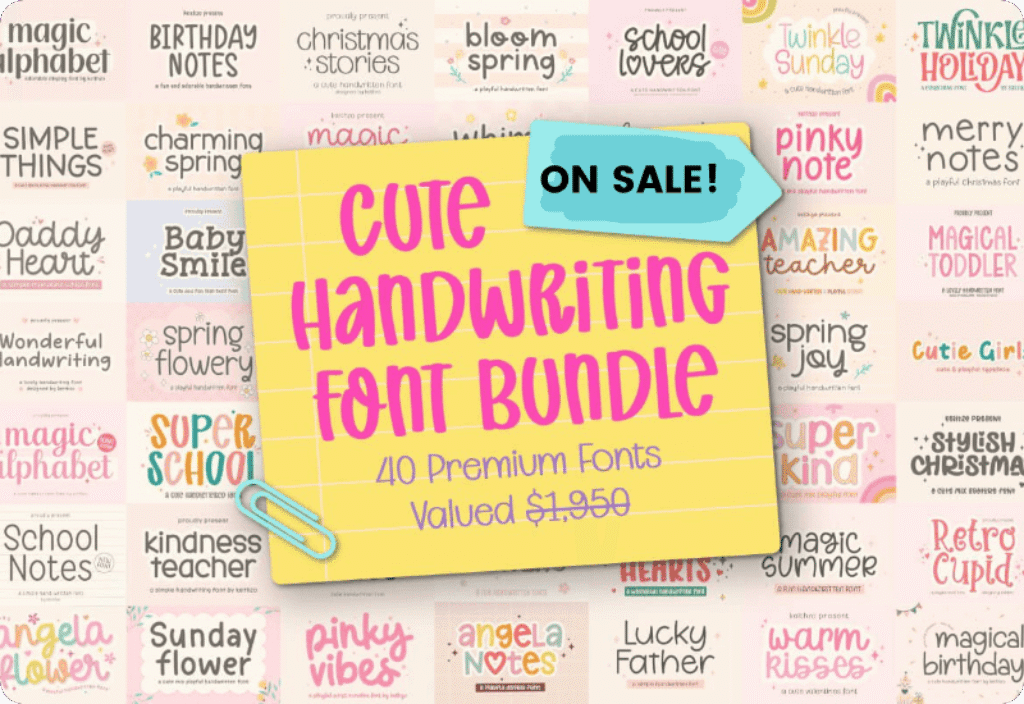
The Cute Handwriting Font Bundle is a delightful collection designed to bring warmth and personality to any design. This carefully curated selection of 40 premium fonts from the skilled hands of Keithzo (7NTypes) blends charm, simplicity, and artistic flair in a way that adds a welcoming, handcrafted look to all kinds of projects. Each font radiates a unique vibe, from sweet and playful to elegant and modern, making it easy to craft designs that feel personal and memorable.
A Bundle Packed with Variety and Creative Freedom
The Cute Handwriting Font Bundle offers a variety of fonts that celebrate the handwritten aesthetic. Whether the goal is to design for special occasions, personal projects, or professional branding, this bundle delivers designs that are versatile and easy to apply across different formats. Each font has been thoughtfully created to balance elegance with the charm of casual handwriting, making them ideal for any project that could benefit from a soft, welcoming, and human touch.
The collection brings together 40 fonts, each offering a unique style and emotional tone. A few highlights include:
- Magic Alphabet Display Font and Magic Alphabet Script Font – playful yet elegant options for digital invitations or fun branding materials.
- Wonderful Handwriting Script Font and School Notes Script Font – perfect for back-to-school campaigns or casual handwritten labels.
- Angela Flower Fontes Script Font and Charming Valentines Font – designed with romantic and floral inspirations, ideal for love-themed designs.
- Christmas Stories Script Font and Stylish Christmas Fuentes Display Font – bringing holiday cheer to seasonal projects.
- Twinkle Sunday Script Font and Warm Kisses Script Font – fonts that carry a cozy and welcoming handwritten signature.
- Birthday Notes Script Font and Magical Birthday Script Font – great for celebratory banners, cards, and social posts.
- Retro Cupid Serif Font and Cutie Girls Script Font – fonts that bring a trendy, youthful, and playful edge to fashion and accessory designs.
Each font is carefully crafted to offer high quality, smooth curves, and clean lines, making them print-ready and optimized for clear visibility across different media.